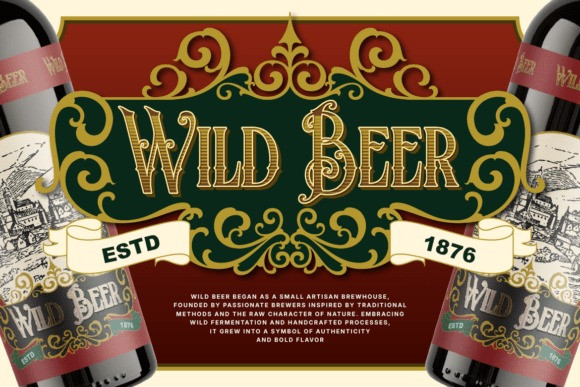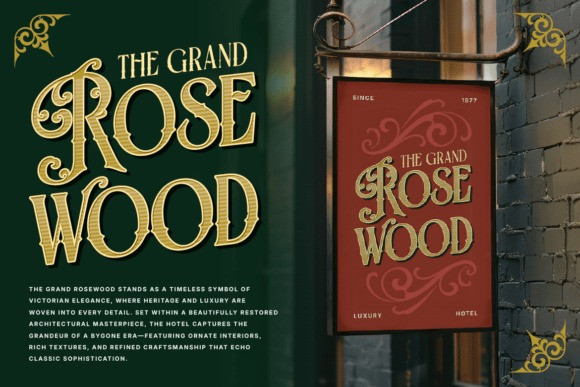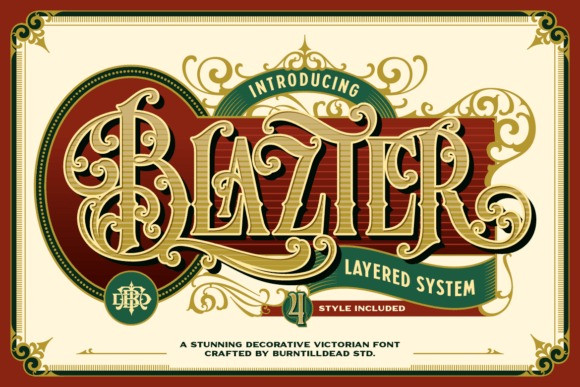
Blazter Font
Blazter Font is a stunning decorative Victorian font designed to bring elegance, vintage charm, and bold character into your designs. Inspired by classic 19th-century typography, this font features intricate swashes, ornamental details, and a beautifully crafted layered system.
Built with a layered font system, Blazter allows you to easily create eye-catching typography with depth and dimension. Whether you’re going for a classic gold engraving look or a bold vintage label style, this font gives you full creative control.
Perfect for designers who want to create luxury, heritage, and retro-inspired visuals with a strong personality.